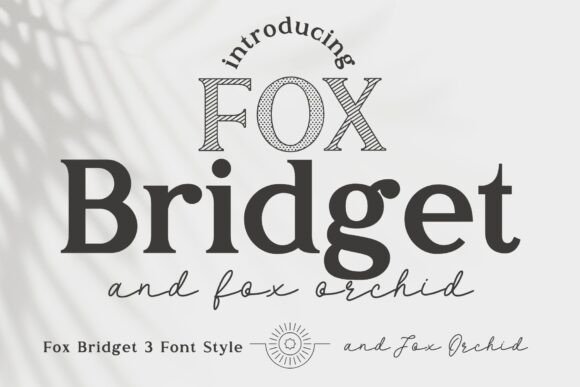
Introducing Fox Bridget and Fox Orchid Font: The Ultimate Duo for Elegant Designs
In the world of typography, finding the perfect font combination can elevate your designs from ordinary to extraordinary. Fox Bridget and Fox Orchid are two stunning fonts that, when paired together, create a harmonious balance of classic sophistication and whimsical elegance. This dynamic duo is perfect for a wide range of creative projects, from logos and branding to wedding designs and social media posts.
Fox Bridget: A Sophisticated Serif Font
Fox Bridget is a bold serif font that exudes confidence and sophistication. With three unique styles to choose from, this font is versatile and adaptable, making it perfect for various design applications. Its clean lines, classic structure, and modern feel make it an ideal choice for:
- Logos: Create a lasting impression with a bold and memorable logo that showcases your brand’s personality.
- Headlines: Grab attention with a clear and concise headline that sets the tone for your content.
- Branding: Establish a strong brand identity with a font that communicates professionalism and style.
Fox Bridget’s key features include:
- Three unique styles to suit your design needs
- Bold and clean lines for maximum legibility
- Classic serif structure with a modern twist
- Perfect for logos, headlines, and branding projects
Fox Orchid: A Delicate Script Font
Fox Orchid is a soft, delicate script font that adds a touch of whimsy and elegance to any design. Its flowing lines and gentle curves make it perfect for:
- Invitations: Create beautiful and sophisticated invitations for weddings, parties, or special events.
- Quotes: Add a touch of elegance to your quotes and sayings with a font that exudes refinement.
- Projects that require a touch of whimsy: From social media posts to branding projects, Fox Orchid adds a playful and creative touch.
Fox Orchid’s key features include:
- Soft and delicate lines for a touch of elegance
- Flowing script style perfect for invitations and quotes
- Whimsical and playful feel for creative projects
- Perfect for wedding designs, social media posts, and branding projects
The Benefits of Using Fox Bridget and Fox Orchid Together
Pairing Fox Bridget and Fox Orchid creates a stunning visual contrast that elevates your designs to new heights. The bold, classic structure of Fox Bridget provides a perfect backdrop for the delicate, whimsical lines of Fox Orchid. This duo offers:
- Elegant and sophisticated designs
- Versatility for a wide range of creative projects
- Effortless professionalism for branding and marketing materials
- A unique and memorable visual identity
Design Tips for Using Fox Bridget and Fox Orchid
To get the most out of Fox Bridget and Fox Orchid, follow these design tips:
- Use Fox Bridget for headlines and titles, and Fox Orchid for body text or accents.
- Experiment with different font sizes and styles to create visual hierarchy.
- Pair Fox Bridget and Fox Orchid with images or graphics for added texture and interest.
- Don’t be afraid to mix and match font styles to create a unique look.
Project Ideas for Fox Bridget and Fox Orchid
Fox Bridget and Fox Orchid are perfect for a wide range of creative projects, including:
- Wedding designs: invitations, save-the-dates, and wedding stationery
- Branding projects: logos, business cards, and letterheads
- Social media posts: create eye-catching graphics and quotes
- Marketing materials: brochures, flyers, and posters
Fox Bridget and Fox Orchid are a match made in typography heaven. This elegant duo offers a unique combination of classic sophistication and whimsical elegance, making it perfect for a wide range of creative projects. With their versatility, style, and effortless professionalism, Fox Bridget and Fox Orchid are the ultimate fonts for designers looking to create stunning designs that leave a lasting impression.